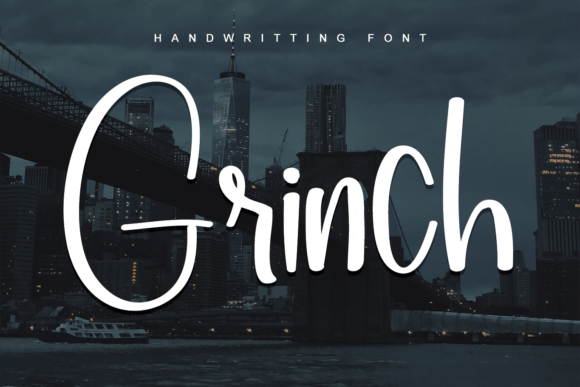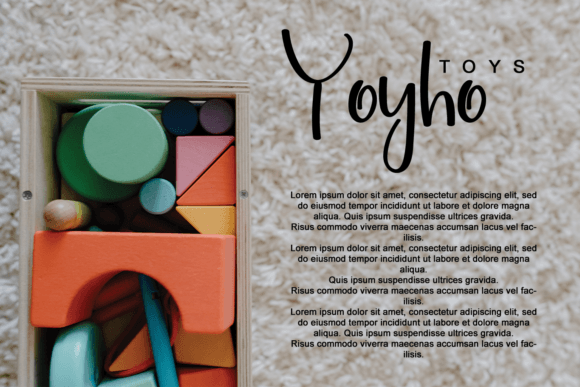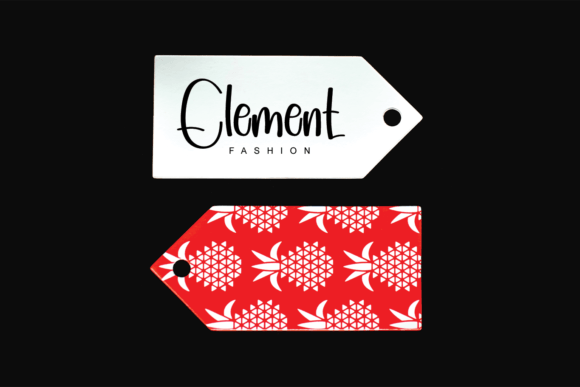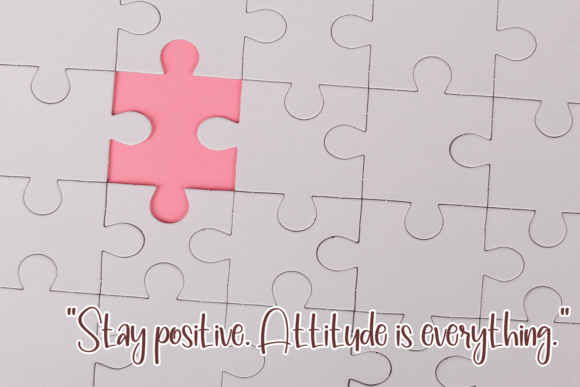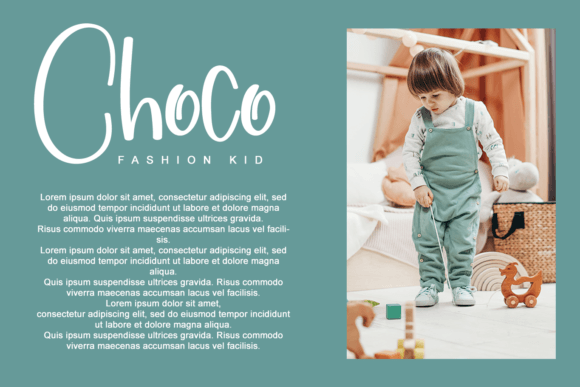
Grinch Font
About Grinch Font
Grinch font is a playful and friendly handwritten typeface designed to bring a lively and charming vibe to your creative projects. Its fun and approachable style makes it an excellent choice for anyone looking to add personality and warmth to their designs. Whether you are working on greeting cards, digital designs, presentations, or crafting unique invitations, Grinch font fits perfectly and helps your work stand out with a distinctive flair.
Fun and Approachable Design
The Grinch font features smooth, flowing strokes that give it a casual and friendly feel. Its rounded edges and balanced letterforms evoke a sense of playfulness, making it ideal for projects that aim to be lighthearted and inviting. This font helps convey a joyful atmosphere, perfect for celebrations and casual branding.
Versatile for Many Projects
One of the greatest strengths of Grinch font is its versatility. It pairs well with a wide variety of creative applications, from festive holiday cards to social media posts and children’s book covers. The font’s unique style makes it a go-to choice for designers and creatives seeking a font that’s both fun and flexible.
Clear and Readable Handwriting
Despite its playful nature, Grinchfont maintains excellent readability. The letters are crafted to ensure clarity, even at smaller sizes, which is important for digital media and print designs. This balance of style and legibility means your message will be both eye-catching and easy to read.
Ideal for Creative Enthusiasts and Professionals
Whether you are a professional graphic designer or an enthusiastic hobbyist, Grinchfont offers a fresh and engaging option. Its friendly personality suits a variety of design themes, making it a valuable addition to any font collection.
Grinchfont is a playful, friendly handwritten typeface that brings warmth and fun to any project. Its versatility, clear design, and unique charm make it a perfect choice for a wide range of creative endeavors. Use Grinchfont to add a joyful, personal touch to your invitations, branding, social media content, and much more.